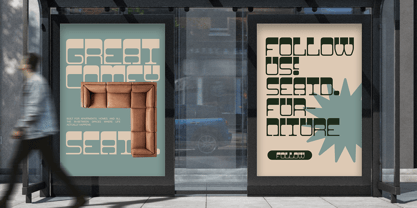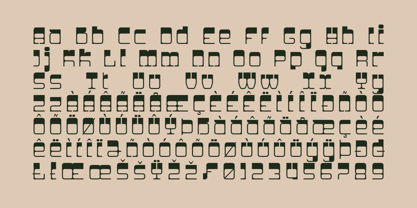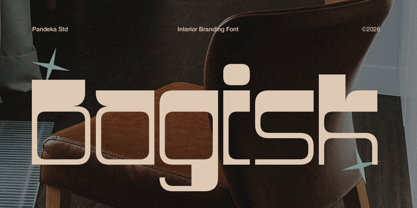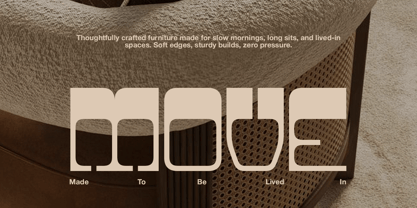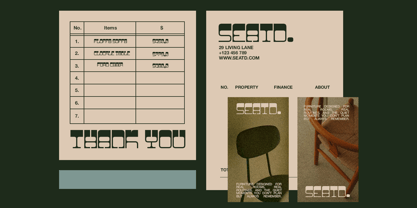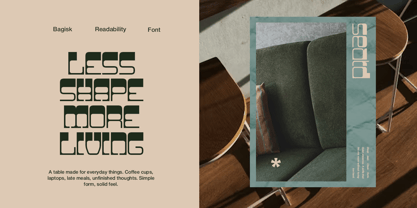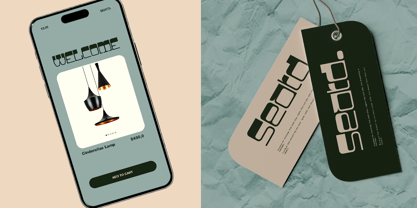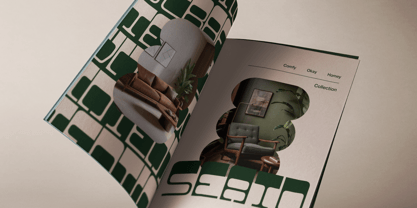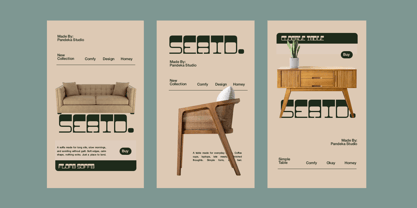
Bagisk
por Pandeka Studio
La familia tipográfica Bagisk fue diseñada por Sagara Nararya y publicada por Pandeka Studio. Bagisk contiene 2 estilos y opciones de paquete familiar. Más información sobre esta familia
Bagisk is a modern geometric display font designed for interior branding and contemporary visual identities. With its clean structure, rounded corners, and strong architectural feel, this font reflects balance, functionality, and modern aesthetics — perfect for furniture brands, interior studios, lifestyle products, and editorial layouts.
This font comes in 2 styles: Regular and Slant, including uppercase and lowercase letters, numerals, punctuation, and symbol support. The slanted version adds dynamic movement while keeping a clean and professional look. Bagisk works beautifully for logos, packaging, catalogs, signage, posters, websites, and social media designs that require a sleek and stylish interior-focused typography.
• 2 Style: Regular and Slant
• Full Character Set: Uppercase, lowercase, numbers, symbols, and punctuation
Diseñadores: Sagara Nararya
Fundición: Pandeka Studio